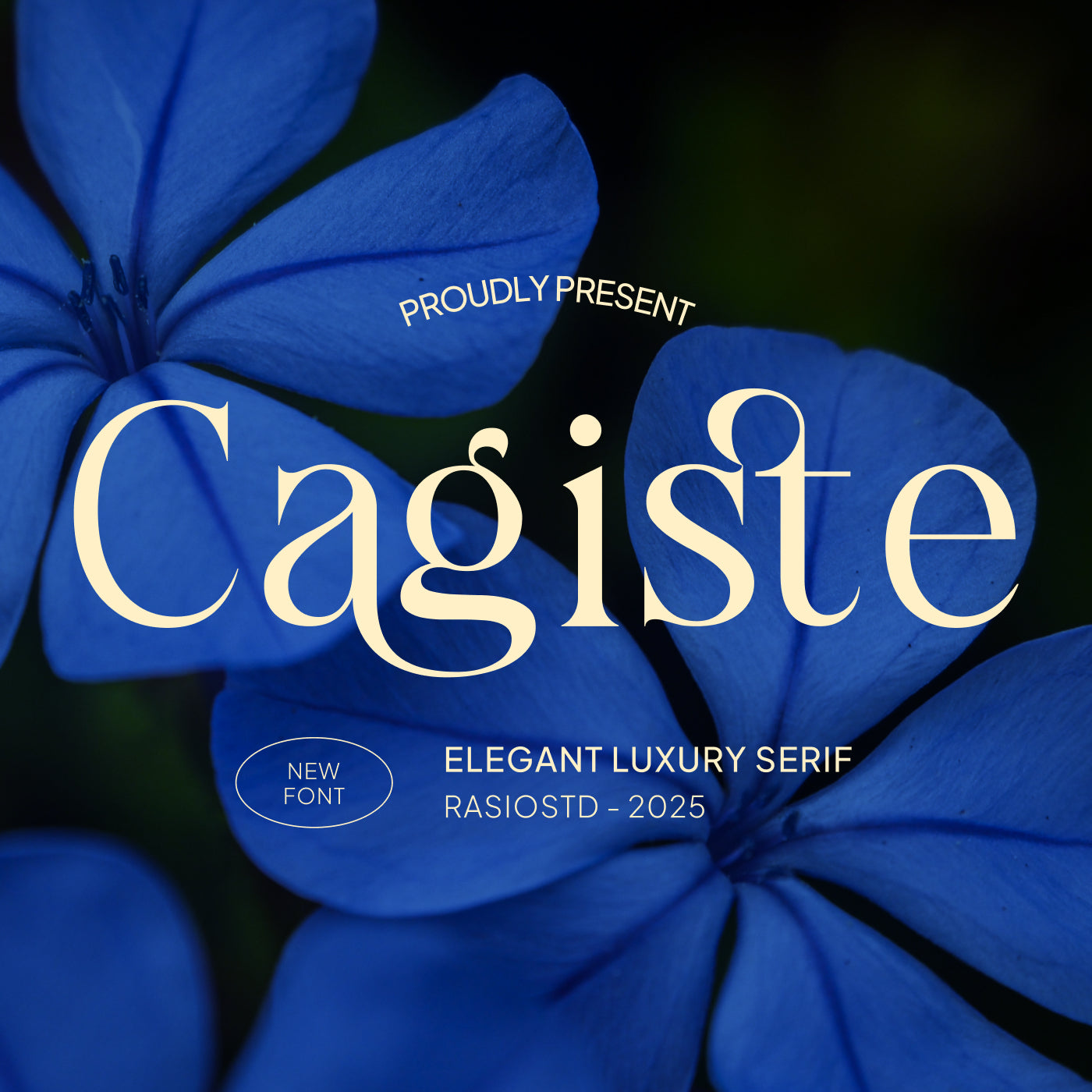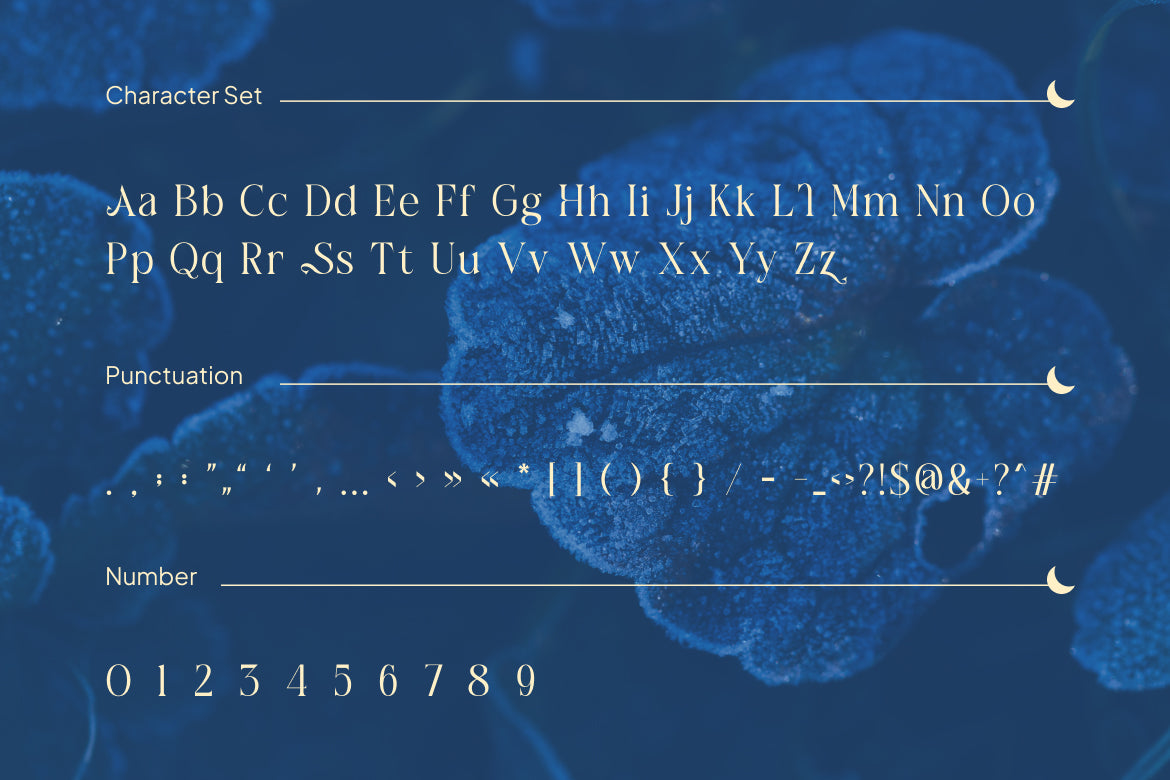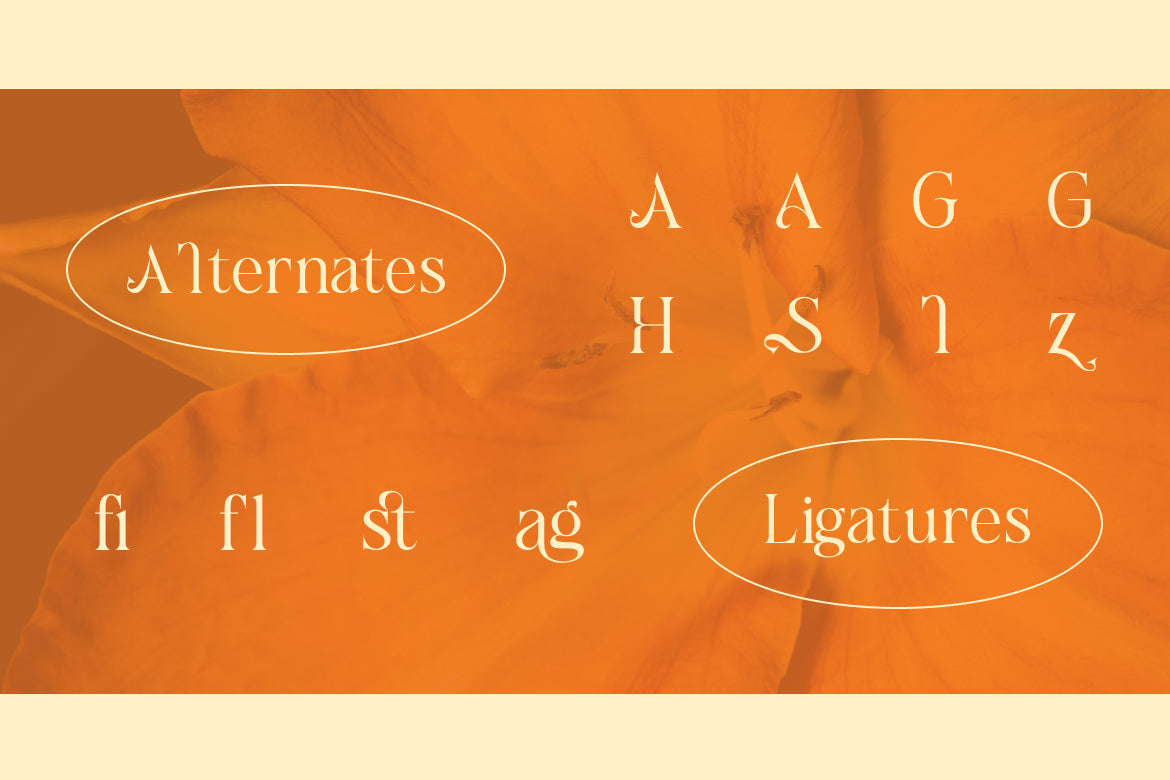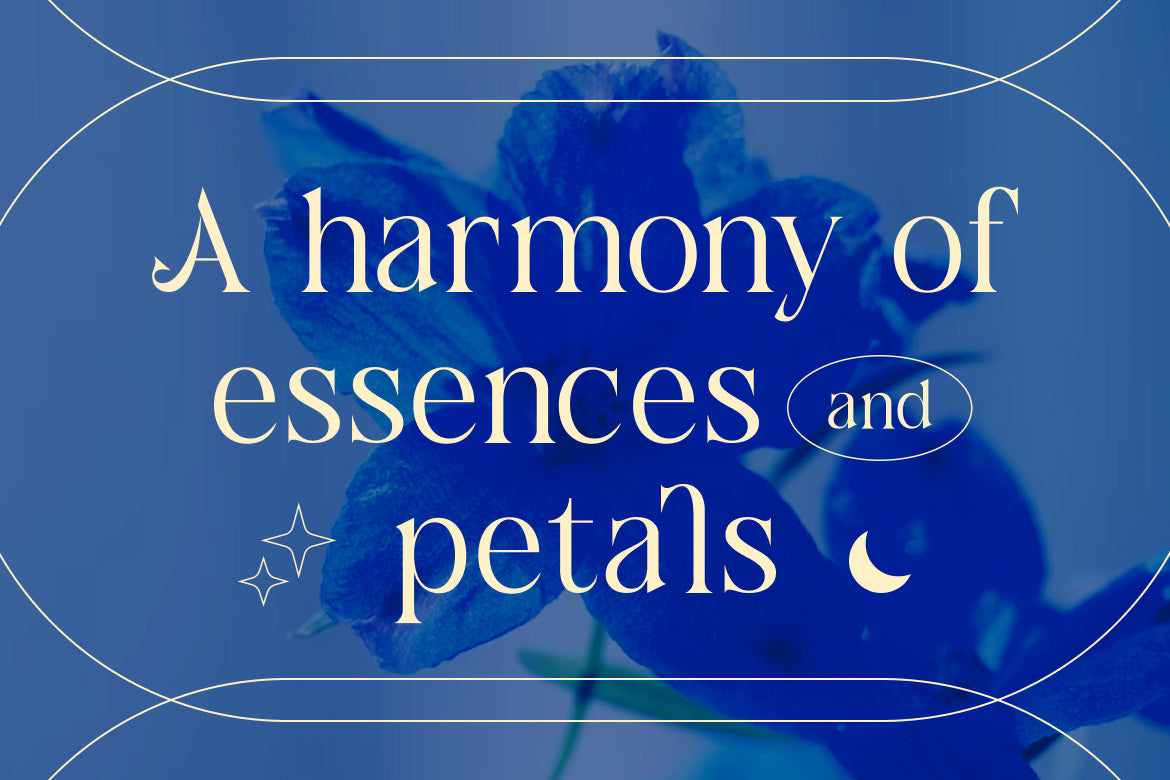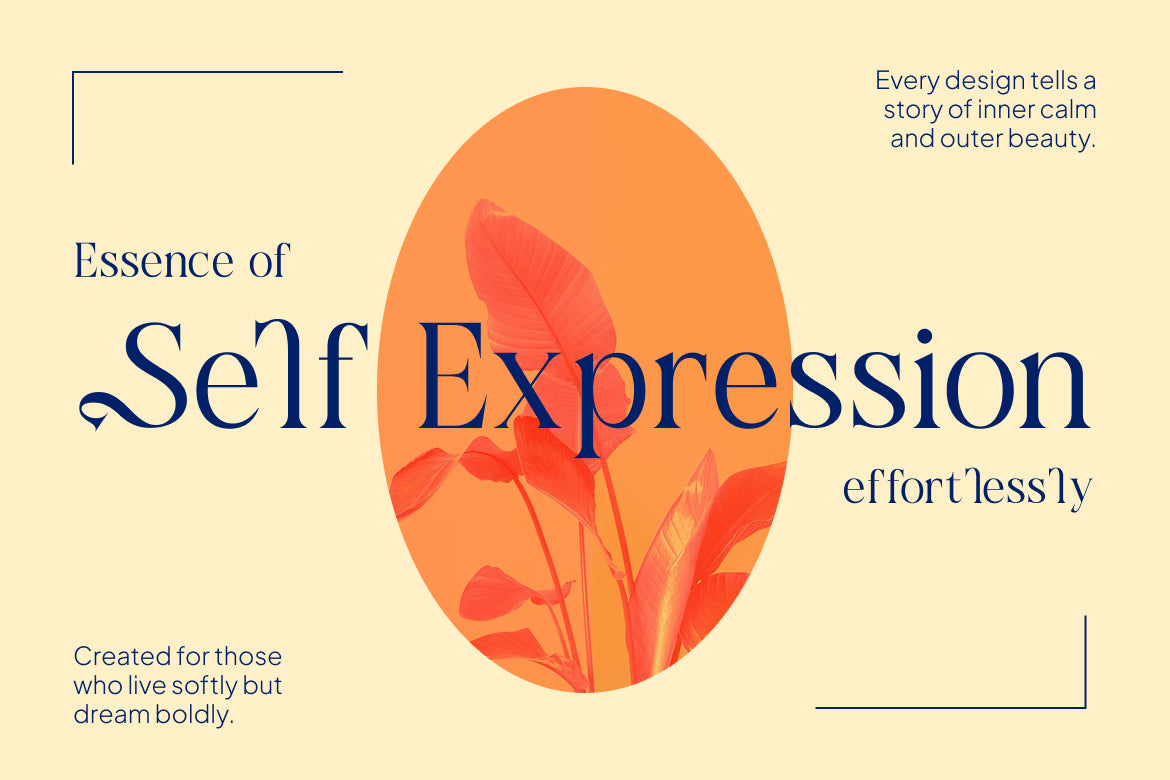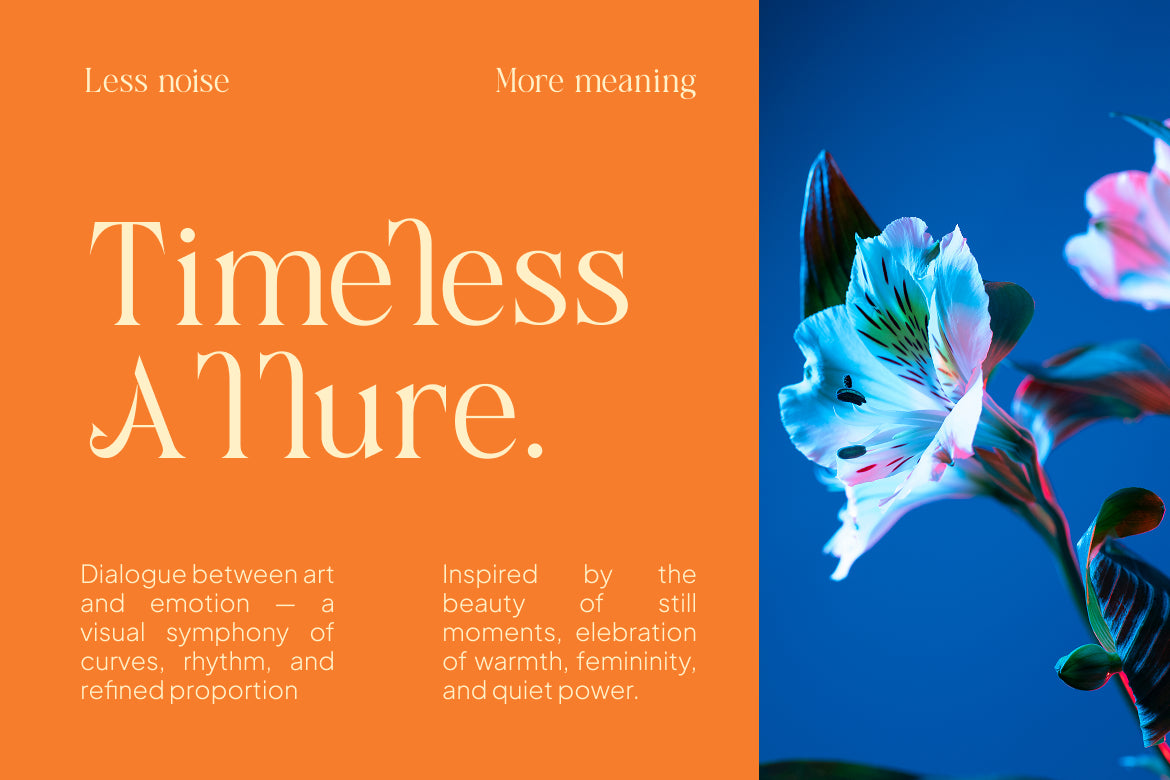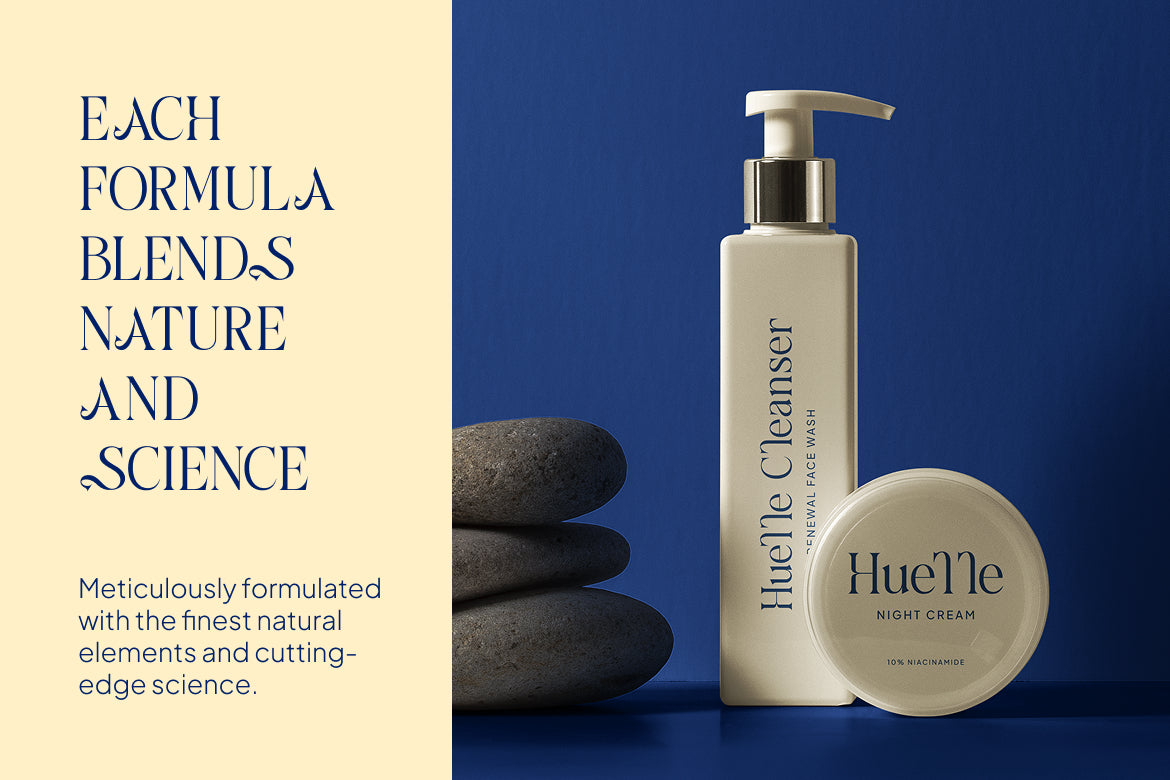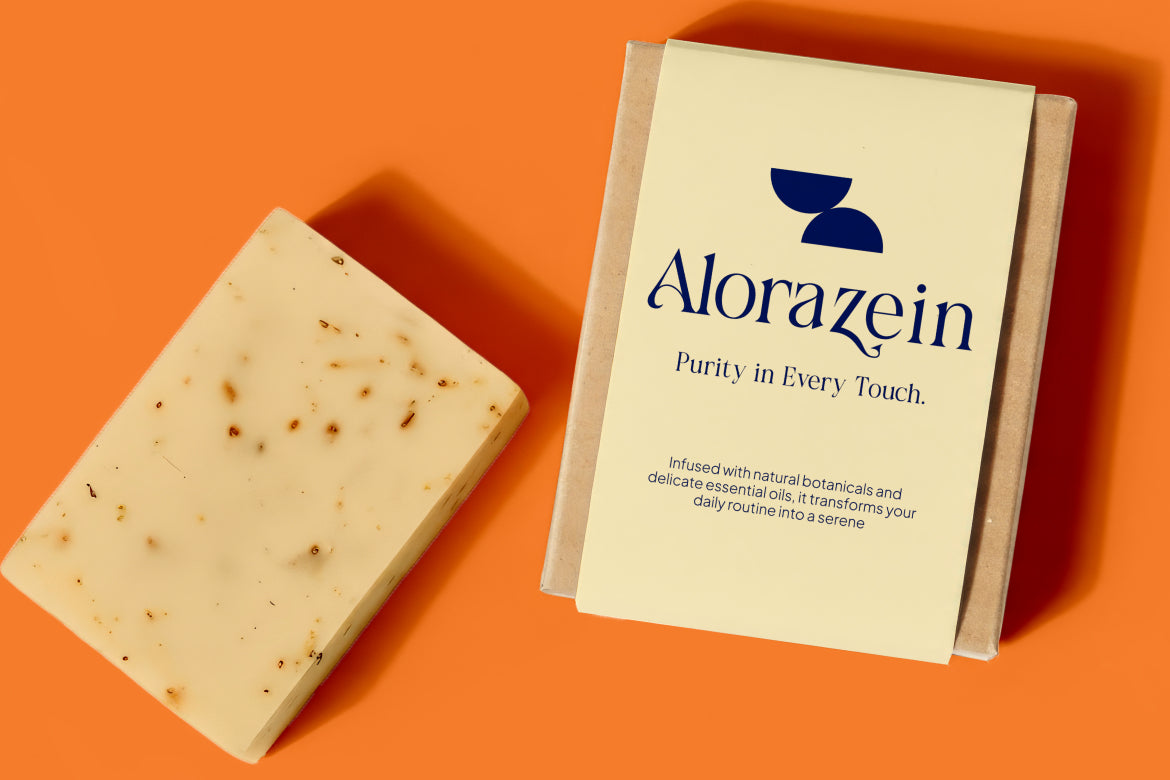
Cagiste Elegant Luxury Serif Font
Cagiste is an elegant serif typeface that exudes sophistication and timeless beauty. It combines modern contrast with refined letter detailing, making it ideal for luxury branding, editorial layouts, and statement typography. The font features graceful alternates and refined ligatures that enhance visual flow and style variation. Designed to deliver a premium look across all print and digital projects, Cagiste elevates every design with subtle charm and artistic finesse.
Relevance and Use Cases is perfect for luxury branding, magazine headlines, fashion identity, wedding invitations, high-end packaging, beauty campaigns, editorial layouts, boutique signage, and modern advertising projects that aim to achieve a refined and sophisticated visual tone.
Cagiste is a serif typeface featuring modern contrast, refined letter detailing, alternate characters, and ligatures. It includes uppercase and lowercase letters, numerals, and punctuation, and is available in TTF, OTF, and WOFF formats.